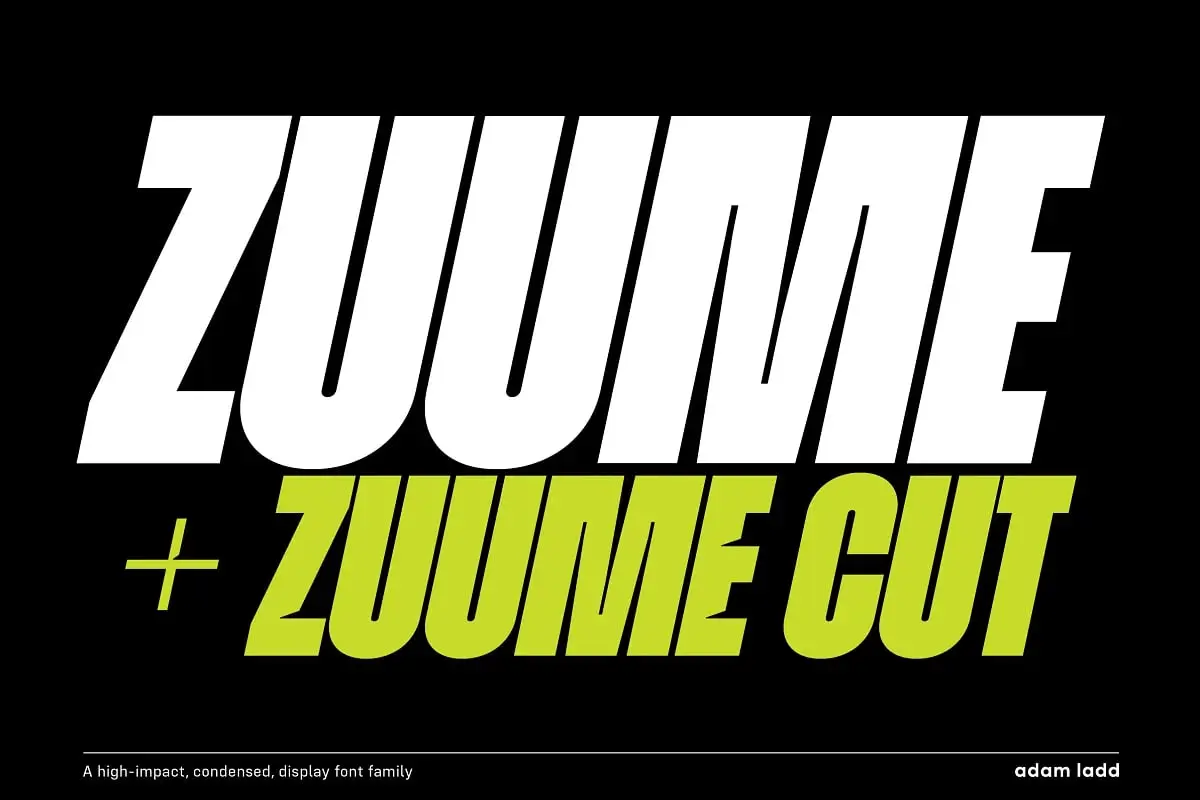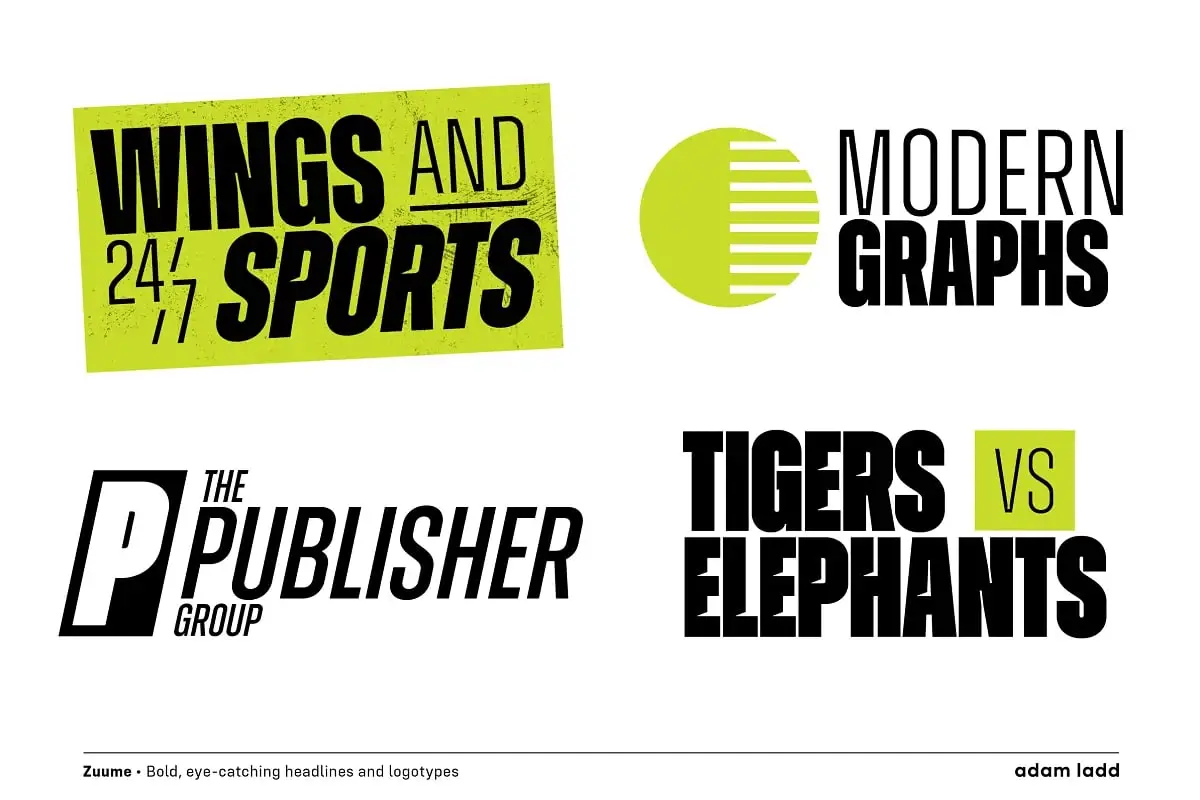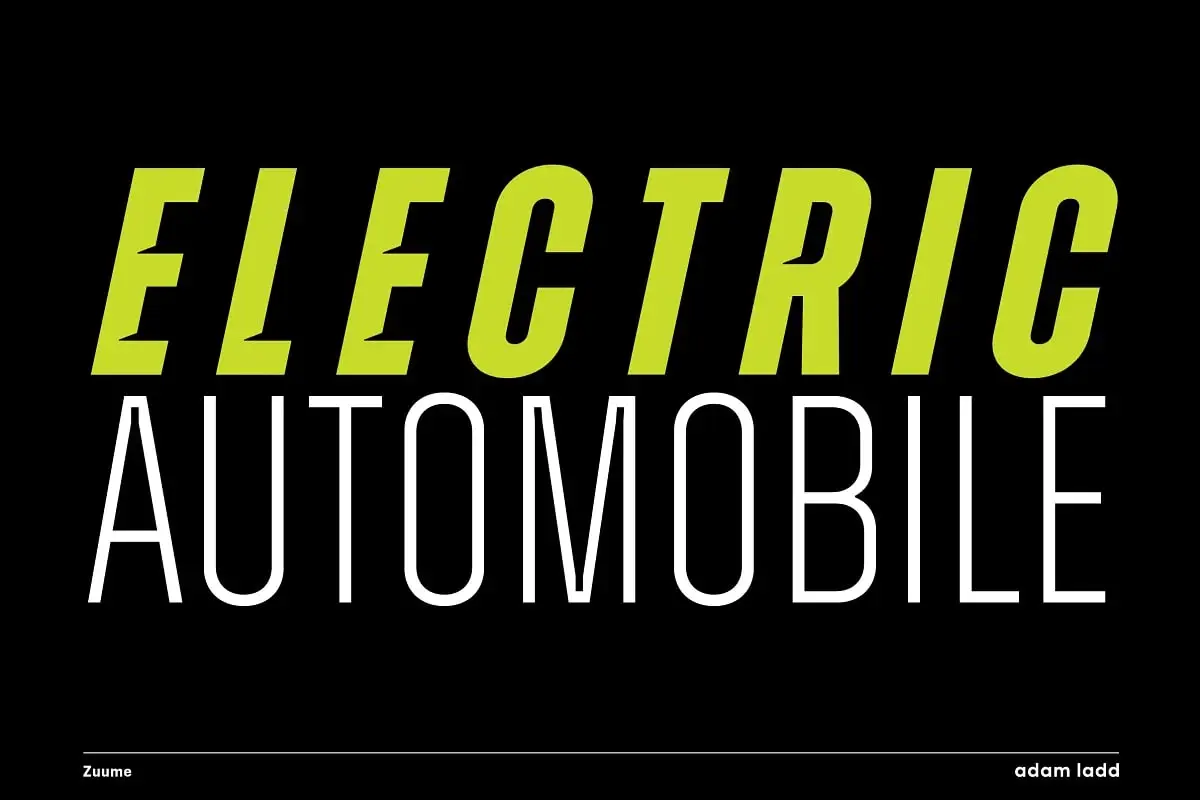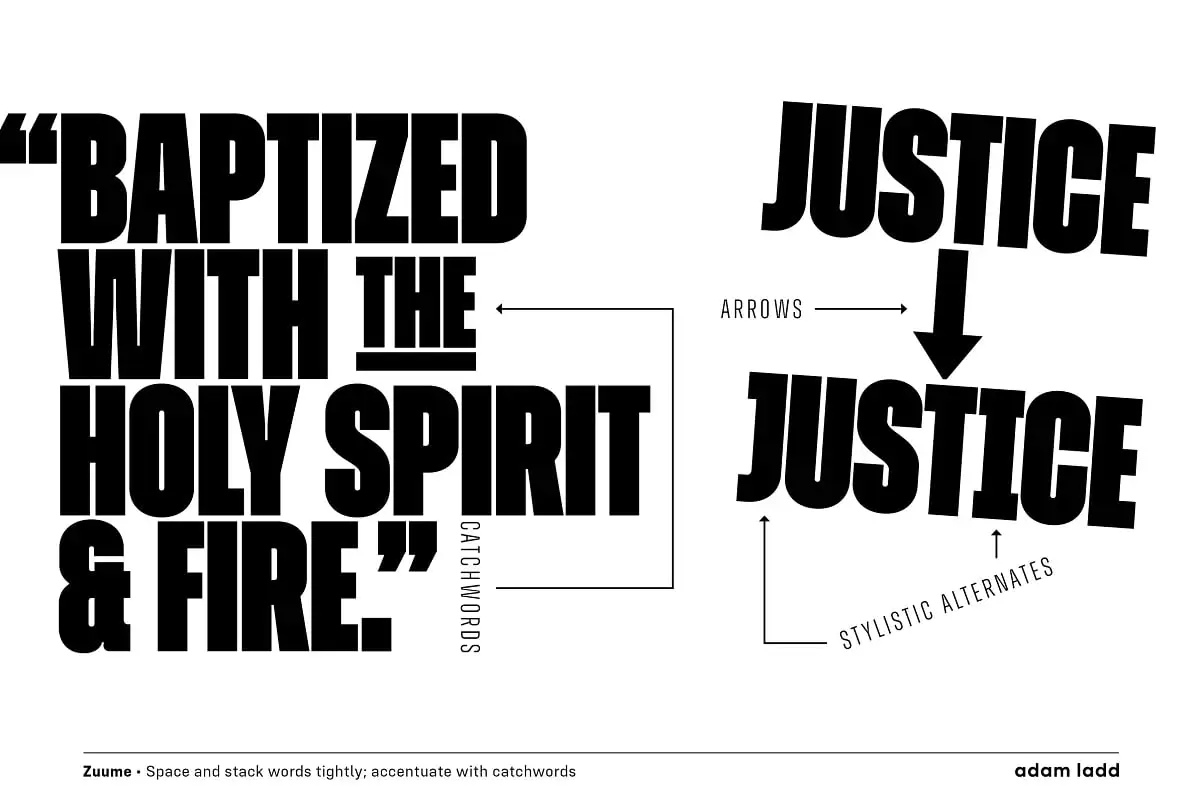
Zuume Font Family
The Zuume Font Family offers a versatile selection of typefaces designed to elevate your design projects. With a range of styles and weights, this font family is perfect for various applications, from branding and logos to web and print design.
• Multiple font styles including Regular, Bold, and Italic
• Clean and modern aesthetic suitable for diverse design needs
• High legibility across different sizes and mediums
• Weights: Light, Regular, Medium, Bold
Utilize the Zuume Font Family for eye-catching headlines, engaging body text, or to create a cohesive branding identity. Its versatility makes it suitable for both digital and print applications.